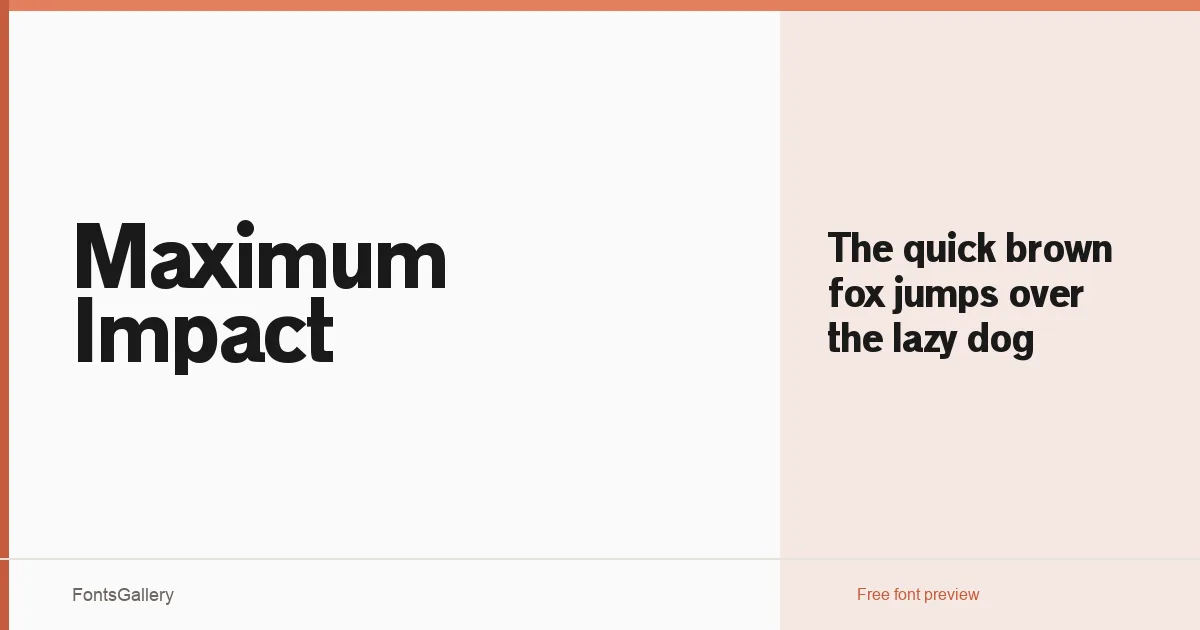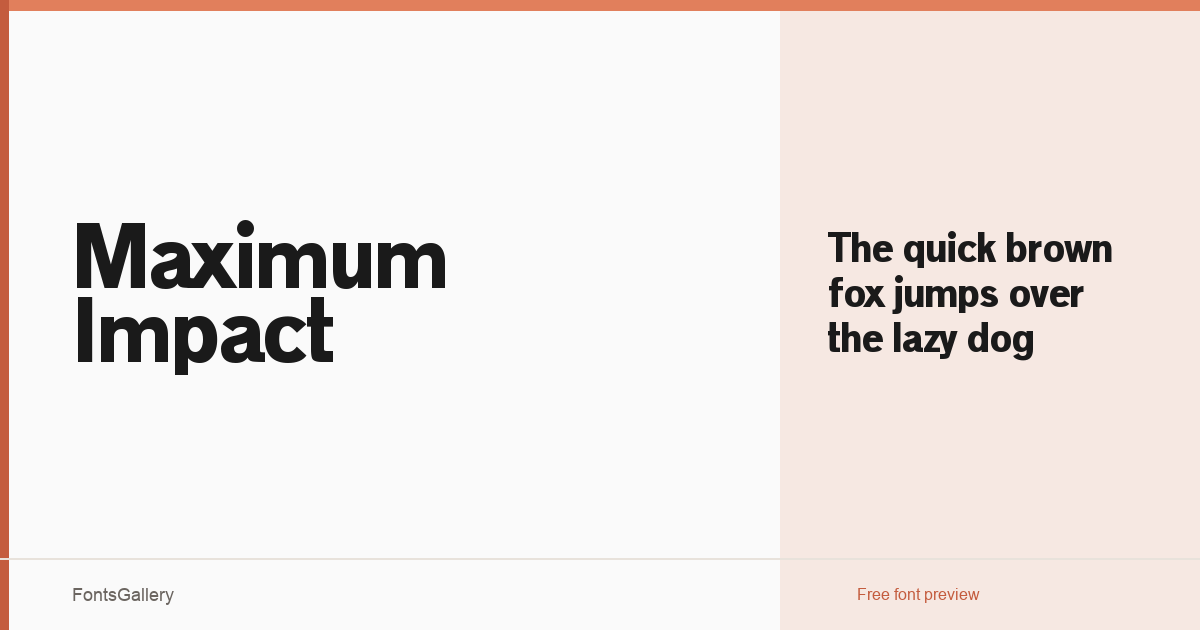
About Maximum Impact Font
Maximum Impact is a bold, modern sans serif typeface designed to command attention and make a powerful visual statement. Its strong, professional character makes it an ideal choice for projects that demand presence and clarity. This typeface is built for high-visibility applications where typography needs to do the heavy lifting.
As a sans serif font with a bold and modern personality, Maximum Impact features clean, confident letterforms with strong visual weight that projects professionalism. Its characters are crafted to maintain clarity and impact at large sizes, making each letter feel assertive and purposeful. The overall aesthetic strikes a balance between contemporary design sensibility and authoritative presence.
Maximum Impact excels in logo design, poster layouts, advertisements, headlines, and branding campaigns where visual dominance is essential. Its commanding weight makes it particularly effective for large-format print and digital advertising where immediate attention is the goal. For complementary pairings, consider combining it with Aresink or Ballmain to create dynamic typographic contrast.